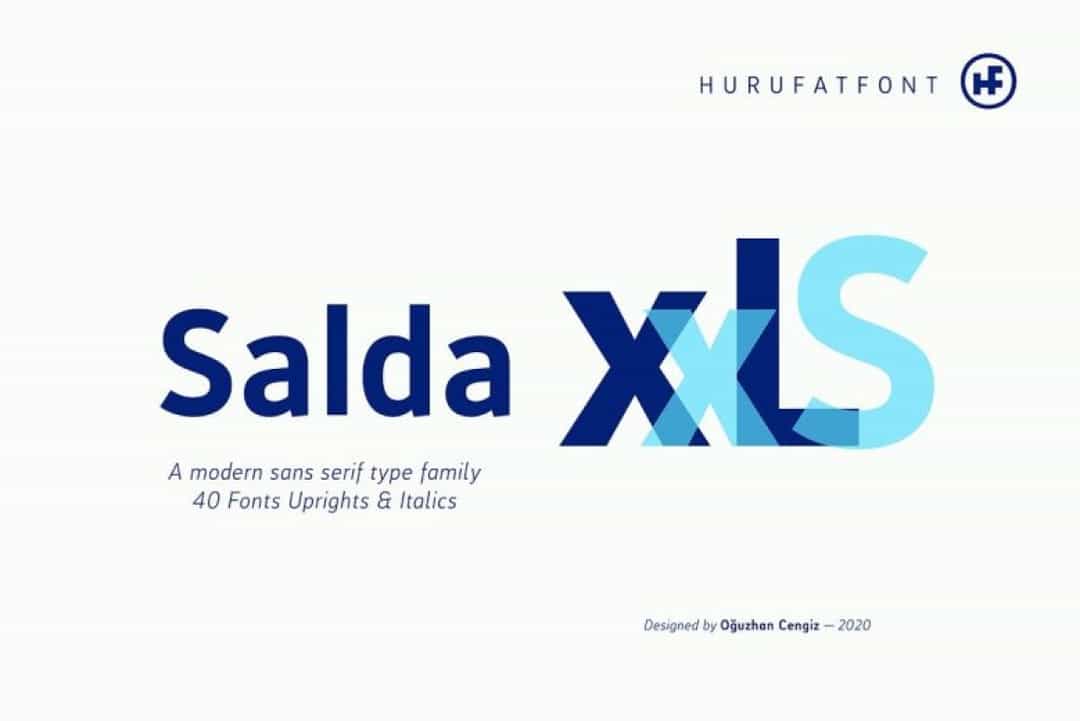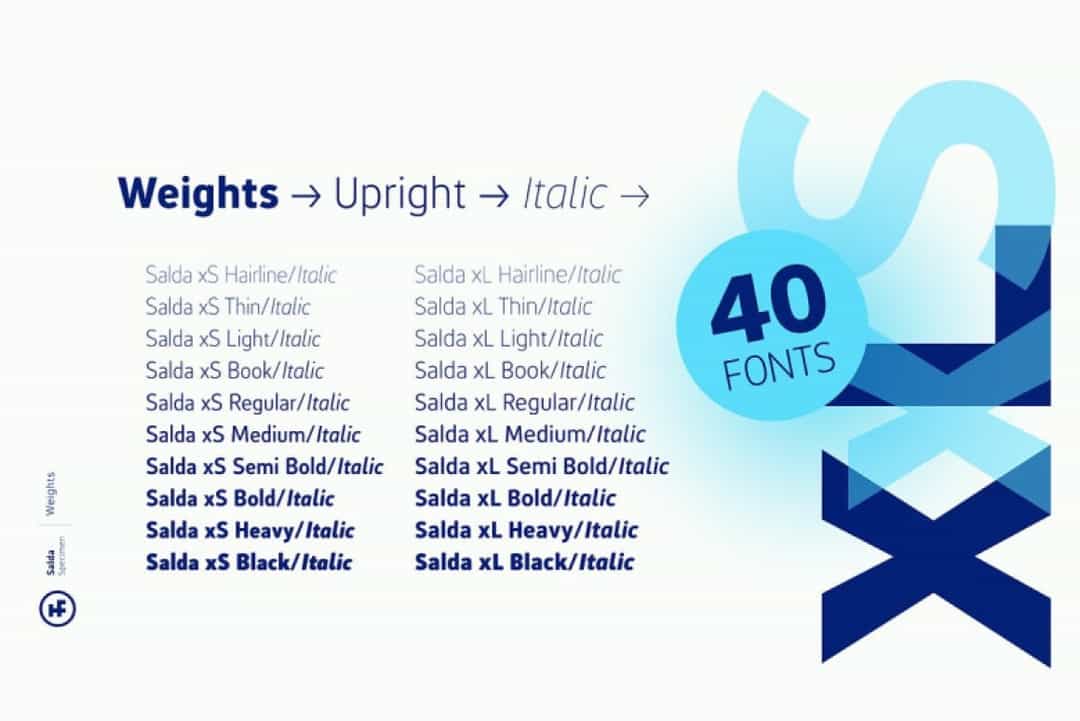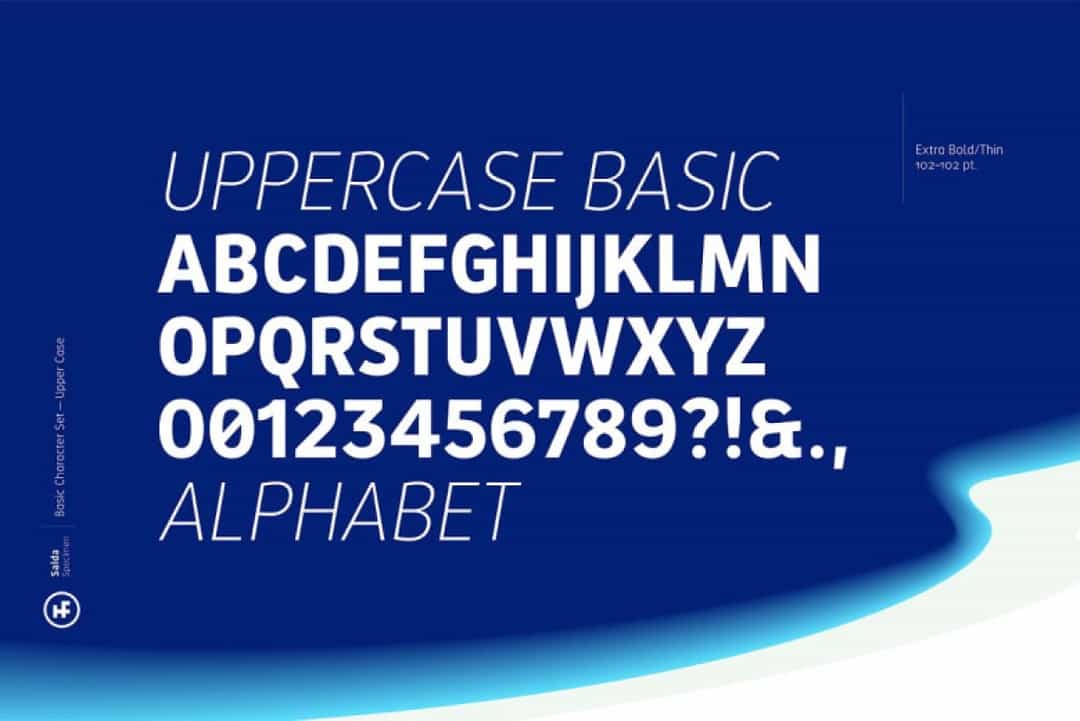
Salda can be described as a Modern sans serif font family that blends both classic and contemporary sans serif fonts within one pot. Thanks to its slim, narrow shape and crisp, clean lines featuring humanistic accents, Salda offers smooth visuals across mobile apps, vertical screens and block text for use anywhere on screen.